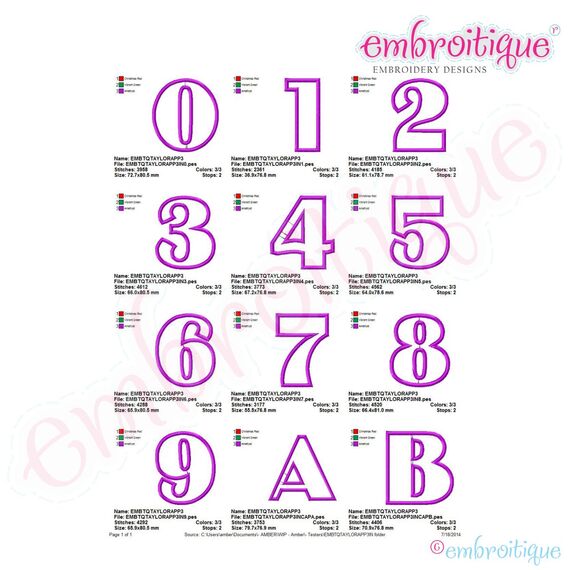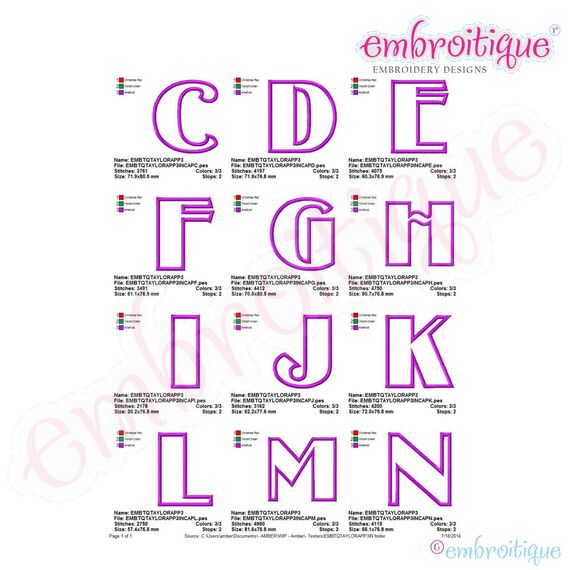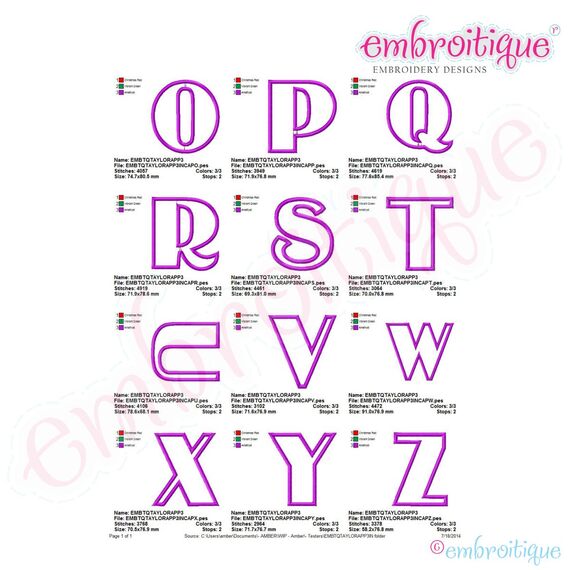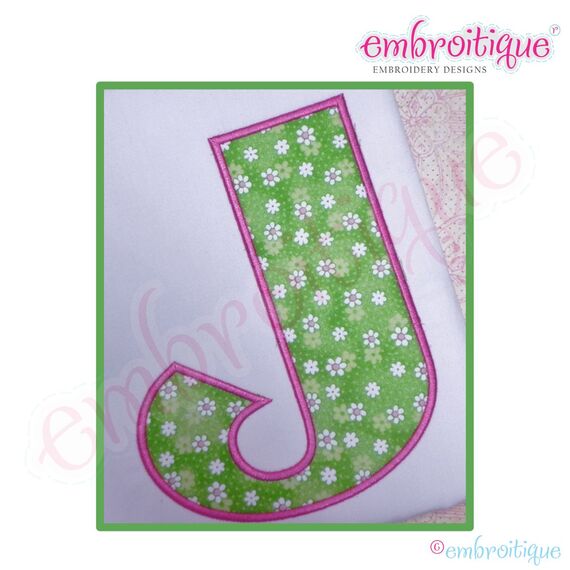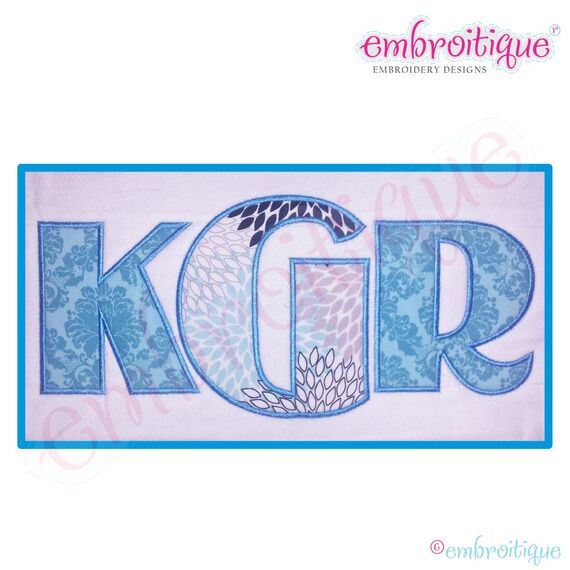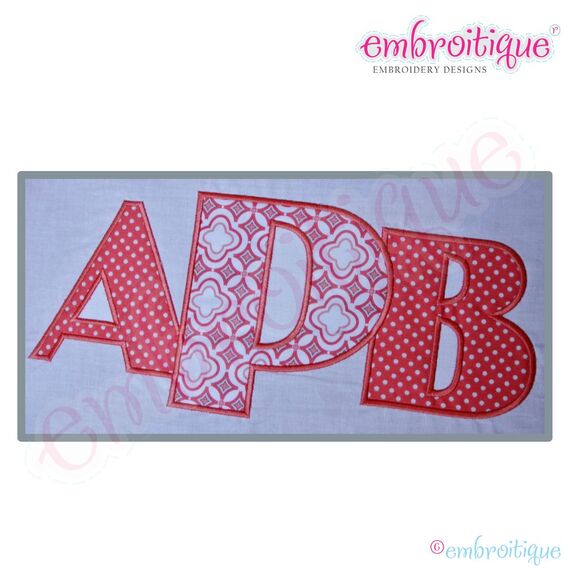
Taylor Applique Monogram Set - Large - 4", 5", 6", 7"
This is such a great set! Perfect for boys or girls! Works great for names or monograms! Also available in small sizes.